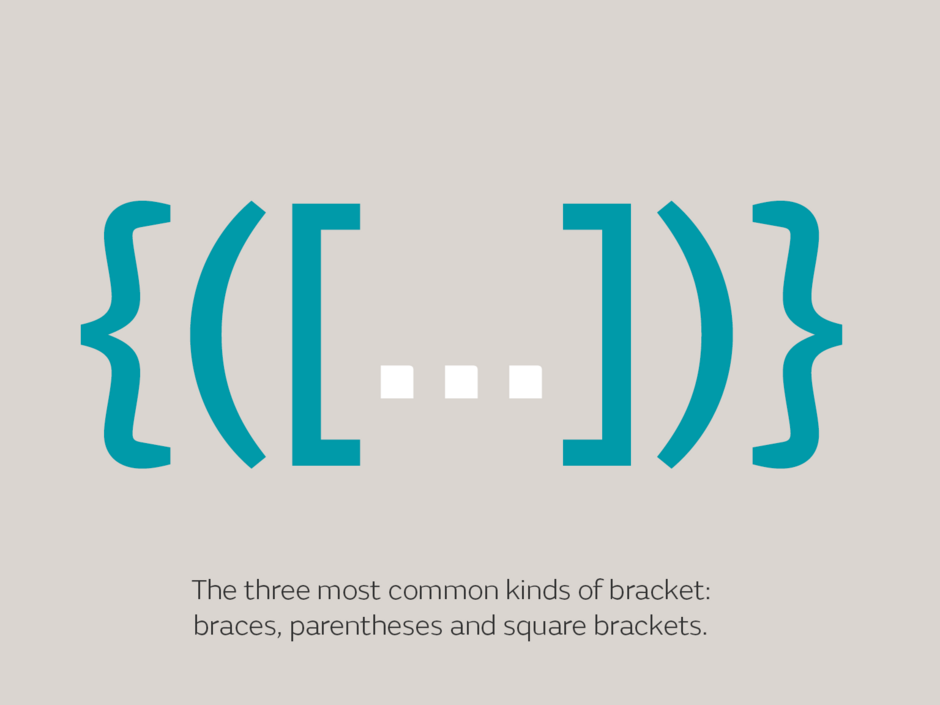
Punctuation Series: Brackets
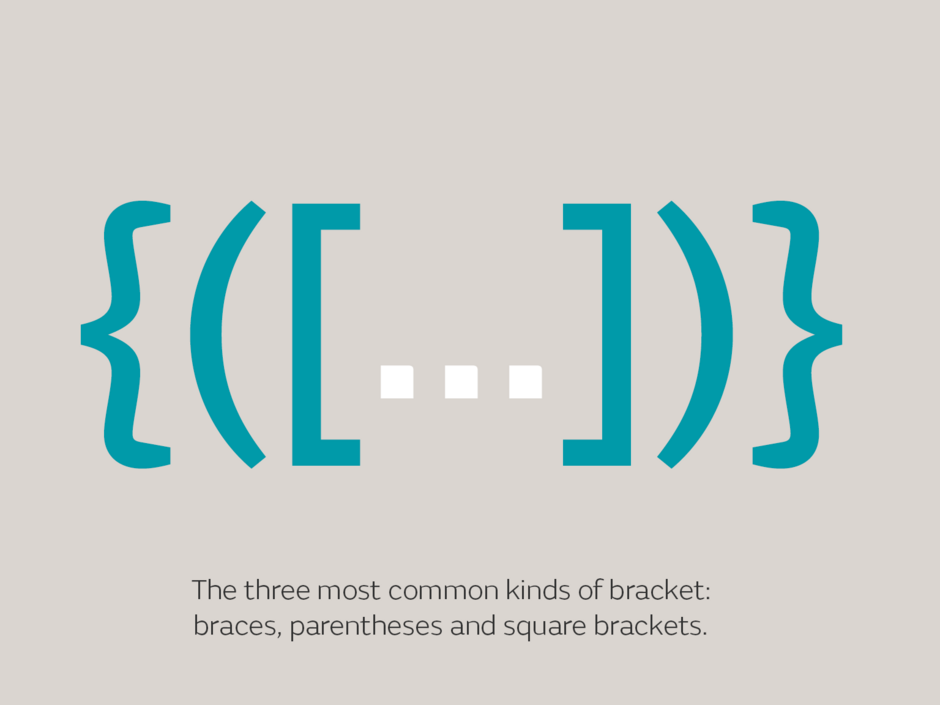
Punctuation Series: Brackets
The three most common kinds of brackets are: Parentheses, square brackets and braces. Each have their own uses, depending on content and context, be it in the setting of text, mathematics or code. The below guide is focussed primarily on the setting of English text…
Parentheses (—)
Name Origin:
The word parenthesis originates from the Greek word ‘παρένθεσις’ which is born from words meaning ‘alongside of’ and ‘to place’.
Design:
The traditional typographic parentheses were pure line, a mono linear form much like the dash. But by the mid-1800’s the thick and thin contrasted shape had become the norm. Varying in it’s degree of curvature, the parenthesis offers up the type designer an opportunity to play with tension and define a level of enthusiasm and energy. Oddly this can be quite a thrilling design exercise for such a simply founded structure and the effect it has on any surrounding text can be quite significant, becoming particularly apparent in large body copy setting. When setting the parenthesis in text it is important to ensure that adequate space is on either side of the shape. It is also often recommended to implement the roman or ‘upright’ brackets when using an Italic style yet almost all type foundries do supply the sloped version within their Italic styles. Use what works for you and your project.
Application:
Like all bracket forms, parentheses always open ( and ) close. They allow a writer the freedom to provide additional, sometimes slightly deviated but always useful explanatory information. They denote interpolations. The surrounding sentence must be comprehensible without the acknowledgement of any information within the pair. Parenthesis can also occur within parenthesis i.e ( – ( – )) but it recommended to set a styled system whereby the inner-brackets should be set as square-brackets or visa versa. In this case ( [ – ] ) or [ ( – ) ] works well. Considered this as a design decision based on context and content. In either case, it is recommended to insert a hair-space between any two immediately recurring forms i.e )<hairspace>) or ]<hairspace>)
Samples:
– High quality type design (and typography) is paramount to the project.
– (Copyright Act 1988, 1. 22 (4)) or (Copyright Act 1988, 1. 22 [4])
Square Brackets [—]
Name Origin:
The word bracket is related to the word ‘braguette’ meaning 15th century codpiece. It is true, the term ‘braguette’ evolved to ‘braggets’ and then a chap named Captain John Smith wrote the book “A Sea Man’s Grammar and Dictionary” in 1699 in which he changed ‘bragget’ to ‘bracket’. It stuck and became the architectural term for a bracket that we know today, mainly for holding up shelving. Which just happens to look exactly like our typographic square bracket [ ].
Design:
In design terms all bracket shapes within the same typeface are usually the same height, yet careful optical adjustment is required by the type designer. A frequent issue in some fonts is that the square bracket vertical stroke can appear too dark unless the stem weight is optically reduced and balanced with the surrounding text. These brackets should not stand too close to the letter either before or after the bracket. The nature of their shape requires a liberal amount of space either side in order to appear at ease. It’s also important that the horizontal bars should not excessively protrude, avoiding any problematic spacing issues where kerning adjustment would be required.
Application:
Square brackets are often used in editorial notes, they can enclose words added by another writer, they guide readers to illustrative references or add further explanation to form clarity from the content. Square brackets can indicate potential omissions if the content is questionable. In theatrical scripts brackets can denote stage directions to an actor, specifically when the directions occur mid-sentence. They can also function well in defining pagination numbers when other numerical elements are used on the same page. A bracketed ellipses is also often used to denote omitted text i.e […]
Samples:
Editorial Clarity – The year we founded Fontsmith [1997] was a good year indeed.
Omission – I told you to ‘sit the [expletive] down’
Theatrical Script – We shall rest [puts arm around him]. We shall rest! [The watchman taps.]
Pagination (Page Number 164) – [ 164 ]
Braces {–}
Name Origin:
The word brace means to ‘clasp, fasten tightly’ and comes from the French word ‘bracier’ meaning ‘embrace’.
Shape Origin:
The curvaceous bracket forms are known as the ‘braces’ and but many people refer to them as the ‘curly brackets’ or even ‘squiggly brackets’. Type designers like drawing braces, arguably more so than any other bracket, they have the ability to offer up a window to build differentiation, creativity and uniqueness in the types design. Unfortunately, they are also the least used bracket for text type setting.
Application:
Braces are primarily used in scientific, mathematic or technical writing. As designers we are probably more familiar with their hugging role in just about every coding language, probably the most common function being the grouping of CSS style rules. Braces do however offer something to normal text in those times when you really do need an extra pair of parenthesis. They can be used when all other brackets have been assigned a specific purpose or they can be used to group multiple lines of text.
Samples:
CSS — h1 { font-family: ‘FSUntitledWeb-Regular400’ }
A case for a three tiered bracket system of ( [ { — } ] ) — There were 300 (of the big [red {but not spotted}]) trees.
Angled Brackets
A common yet rarely available bracket is known as the ‘angled bracket’. These brackets consist of two straight lines that point to a mid-line apex or extreme point. They are used mainly in mathematical and scientific writings and are very rarely included in a standard font character set.
Case-Sensitive Brackets
The standard brackets in most fonts are designed to function best in a lowercase typesetting context but it is now common for newer type designs to also include case-sensitive uppercase brackets. These case-brackets are often designed to fit centrally around the uppercase letters, ensuring a far cleaner and harmonious word setting. If you have them in any of the typefaces you are using, you really should use them for setting in all caps. These can usually be accessed by simply selecting ‘All Caps’ in an application’s OpenType panel.